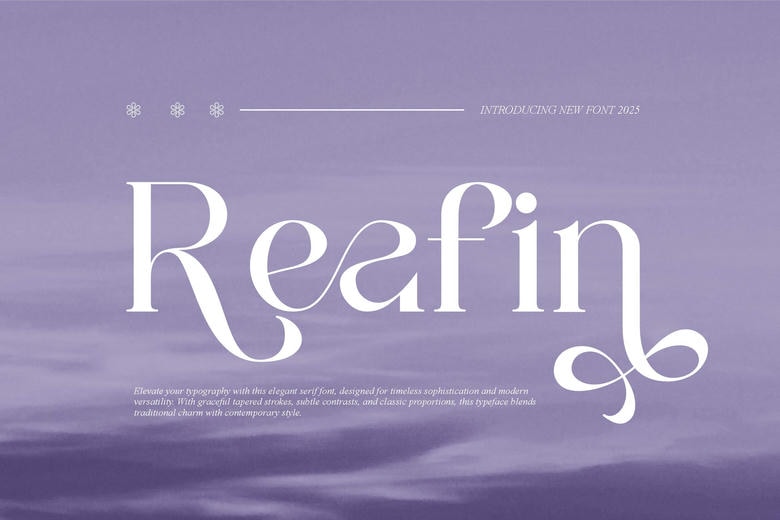
Reafin Font
Reafin is a fashionable and extremely elegant serif font. It is breathtakingly beautiful on wedding invitations, thank you cards, quotes, greeting cards, logos, business cards and all the other design that require a handmade effect.
Reafin Serif Font